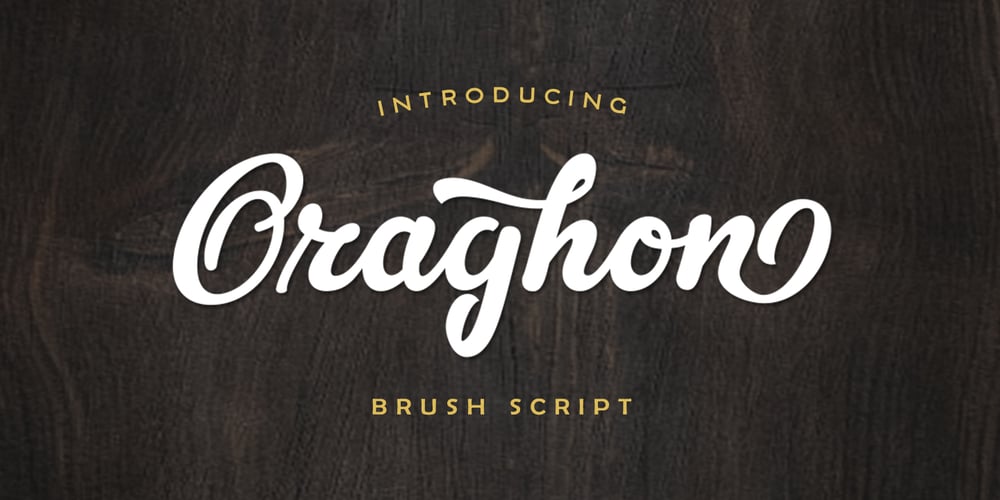
Oraghon Script Font Family was designed by Muammar Kadafi and published by Attract Studio. Oraghon Script contains 1 styles and family package options. Oraghon is a modern script font that comes with beautiful alternative characters. a mixture of copper modern with handleting style. Designed to bring style elegance. Oraghon a feminine, sensual, glamorous, simple and very readable typeface. The classic style is perfect to apply in various formal forms like invitations, labels, menus, Logos, fashion, make up, stationery, letterpress, romantic novels, magazines, books, greeting / wedding cards, packaging, labels.